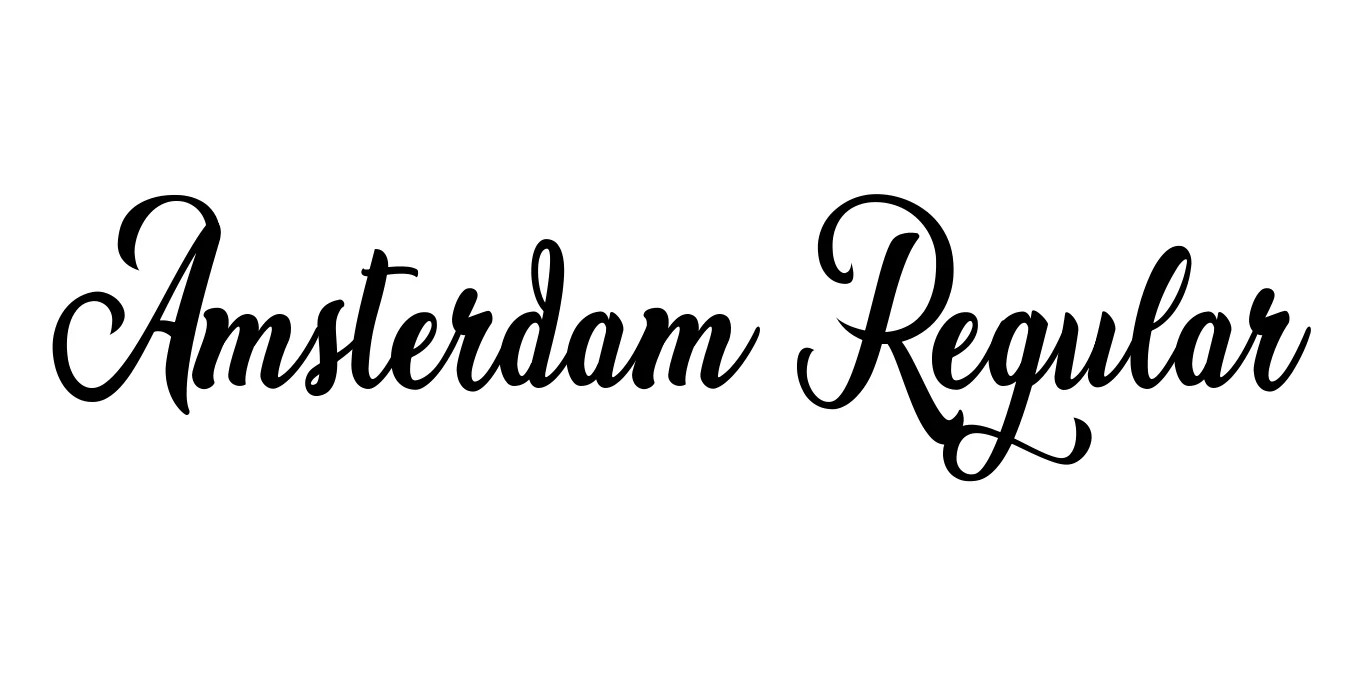
Amsterdam Regular
Designed by Lettersiro Studio
| Font Name | Amsterdam |
| Category | Script / Signature |
| Designer | Lettersiro Studio |
| Similar Fonts | Brittany Signature, Monsieur La Doulaise, Amsterdam One |
Amsterdam Regular is a sophisticated and elegant signature-style script font that captures the essence of natural handwriting. Developed by Lettersiro Studio, this typeface is characterized by its fluid strokes, varied baselines, and a sense of effortless grace. It belongs to a larger family of four distinct variations, with the Regular weight serving as the versatile foundation for high-end creative projects.
Since its release, Amsterdam Regular has become a favorite among designers for its ability to add a personal touch to digital and print media. Its handcrafted aesthetic makes it particularly effective for luxury branding, where a sense of intimacy and exclusivity is required. The font's balance between readability and artistic flair ensures that it remains functional while providing a distinct visual identity.
Amsterdam Regular Best Uses
Exquisite for invitations, save-the-date cards, and seating charts.
Ideal for creating professional signatures and personal logos.
Adds a discreet and stylish touch to professional photography.
Perfect for inspirational quotes and lifestyle blog headers.